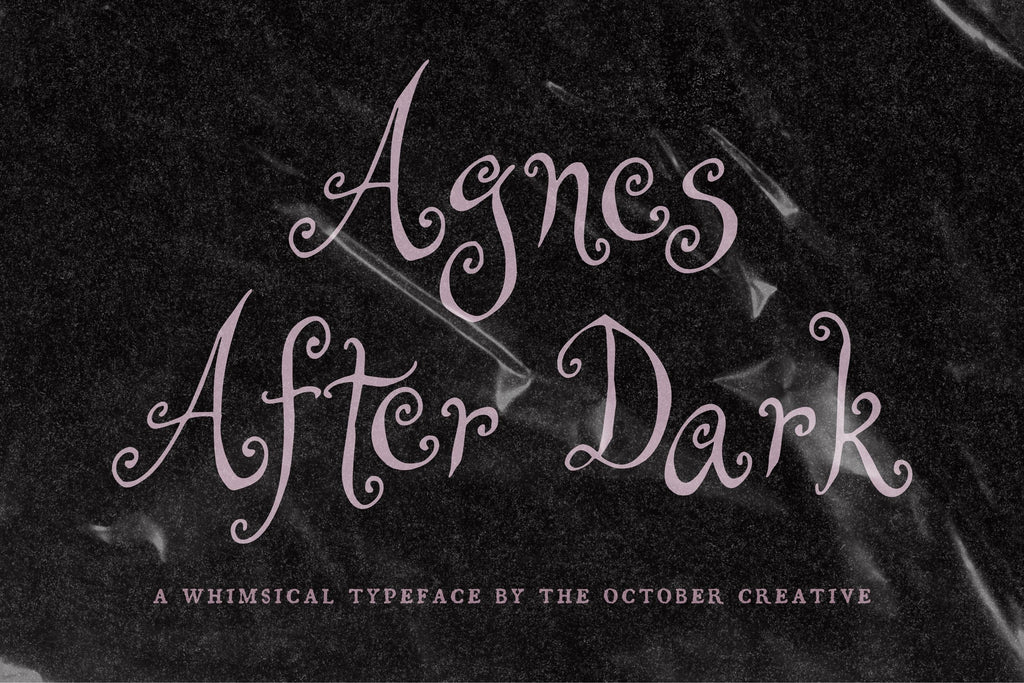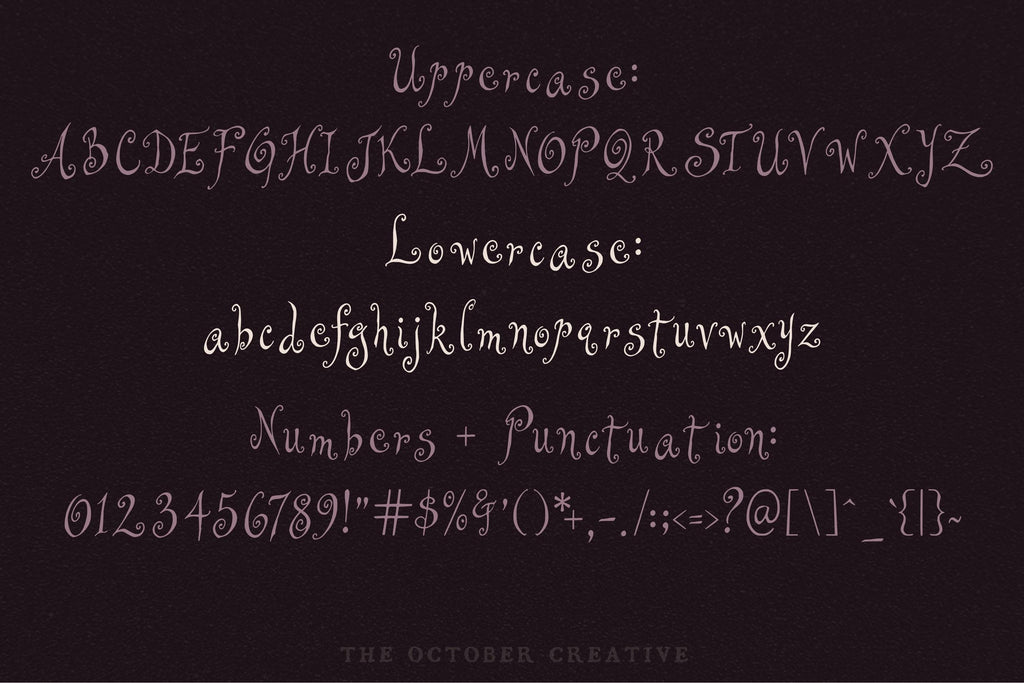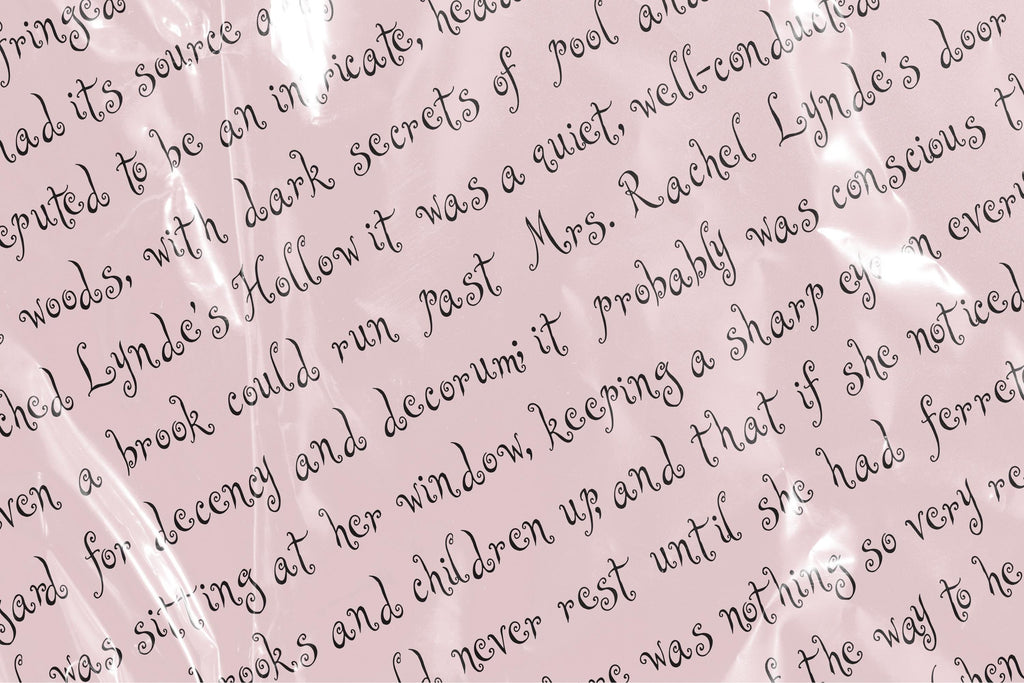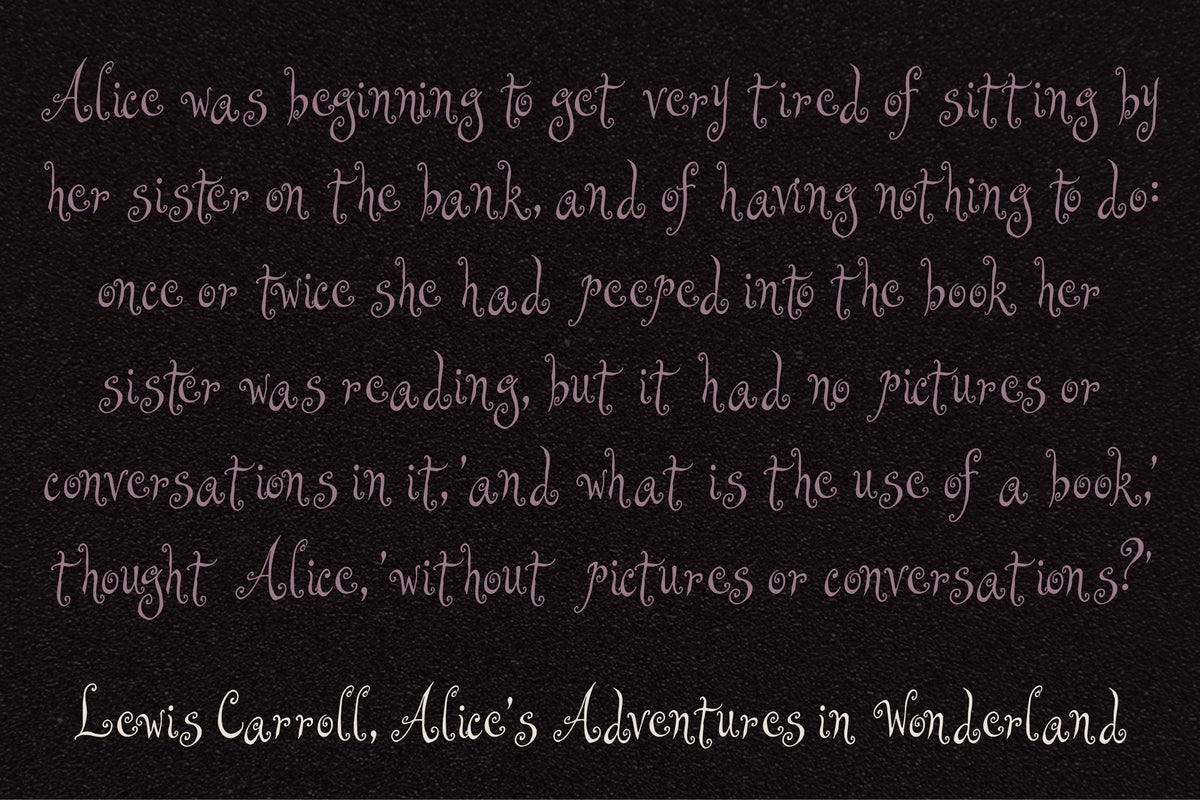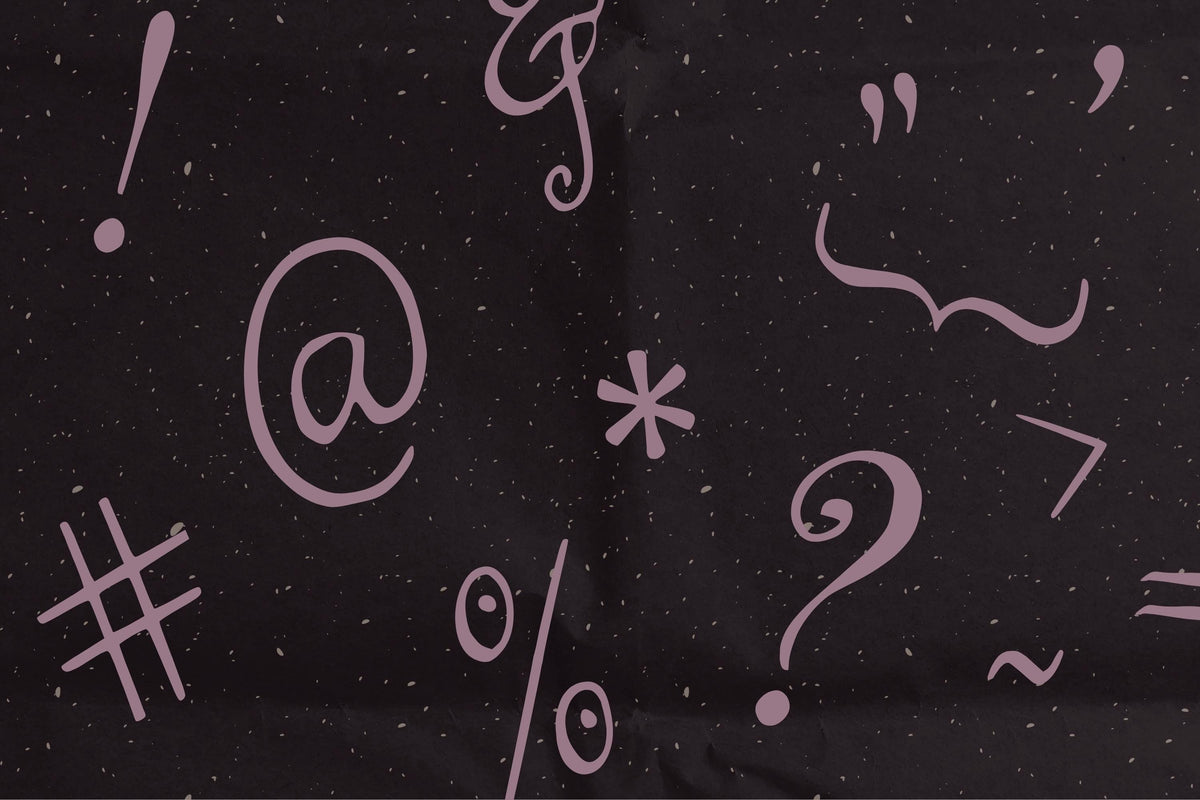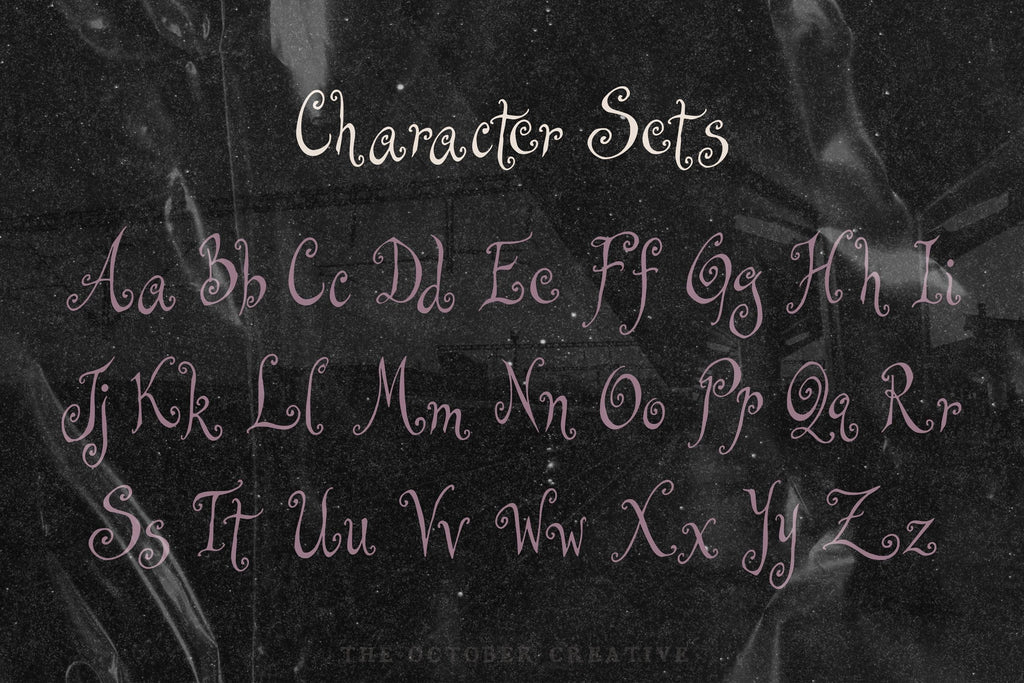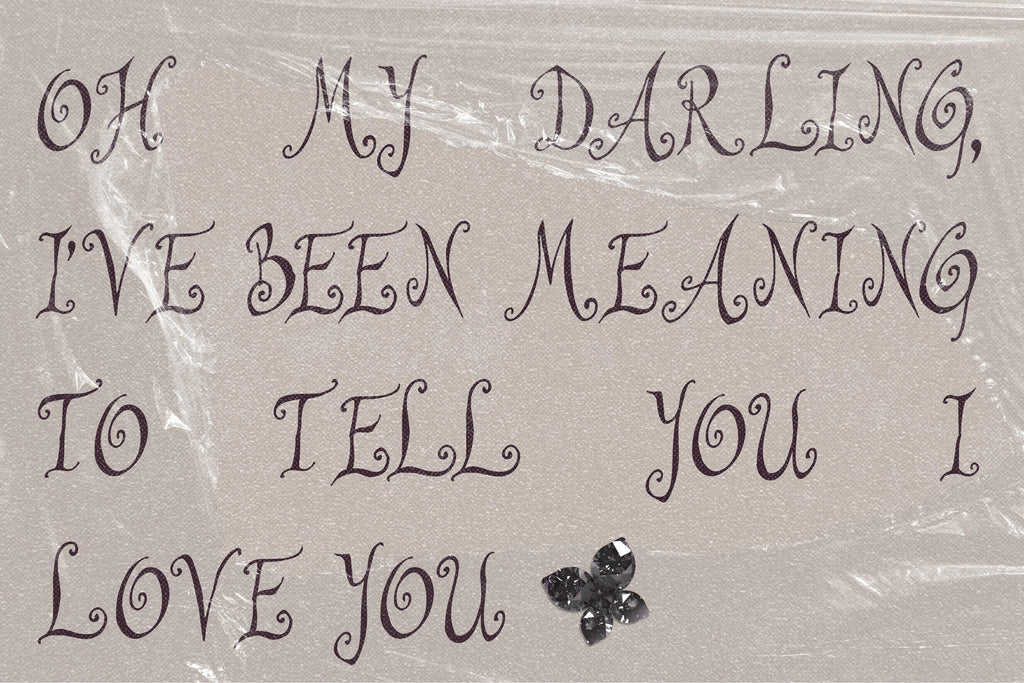
Agnes After Dark Font
Agnes After Dark brings a little mischief to Halloween invitations, party signs, and anything with a witch on it. Its delicate curls and spirals give your words the look of fanciful lettering, with each letter doing a little twirl of its own.
- One style: Agnes After Dark Regular